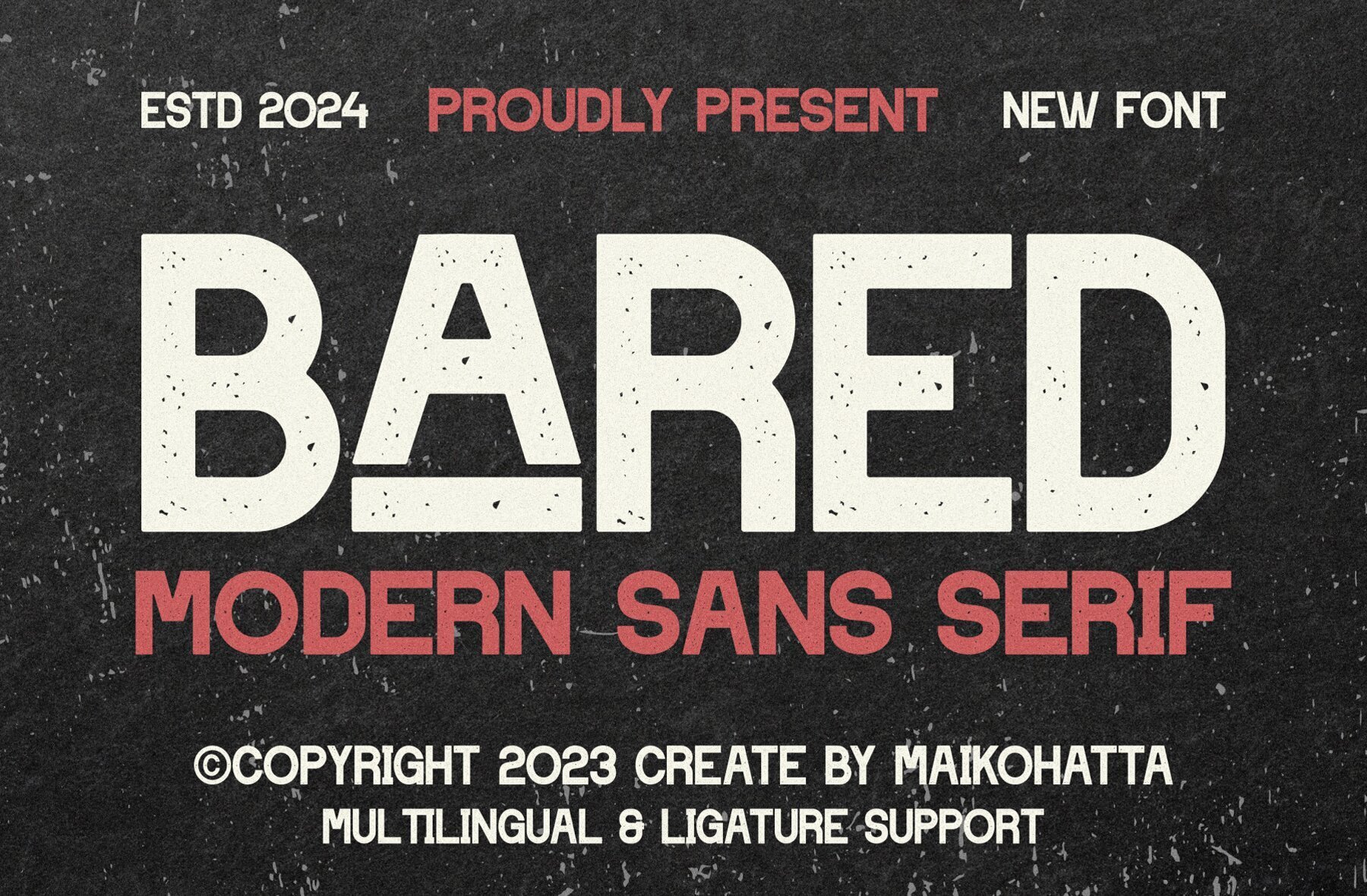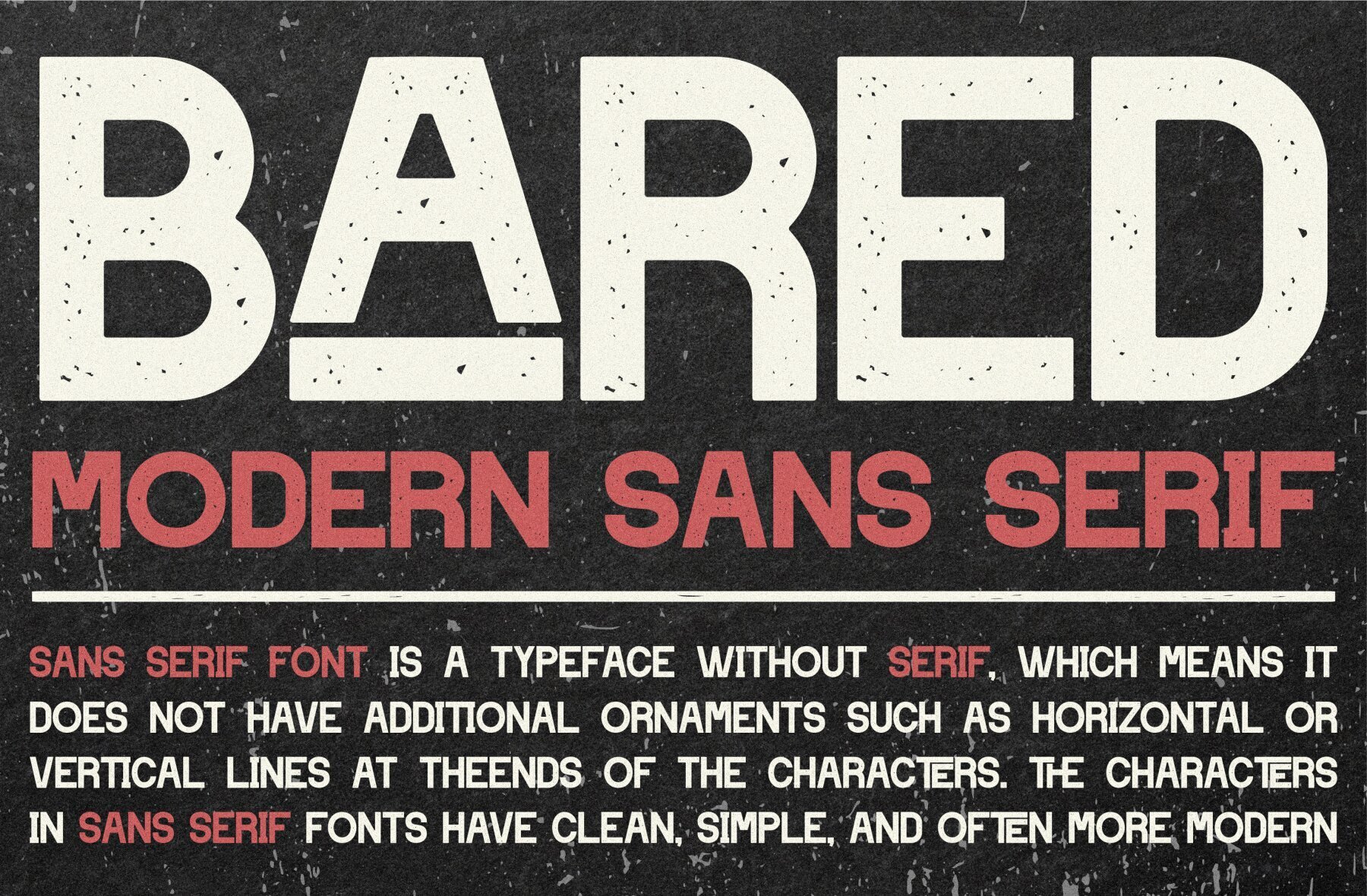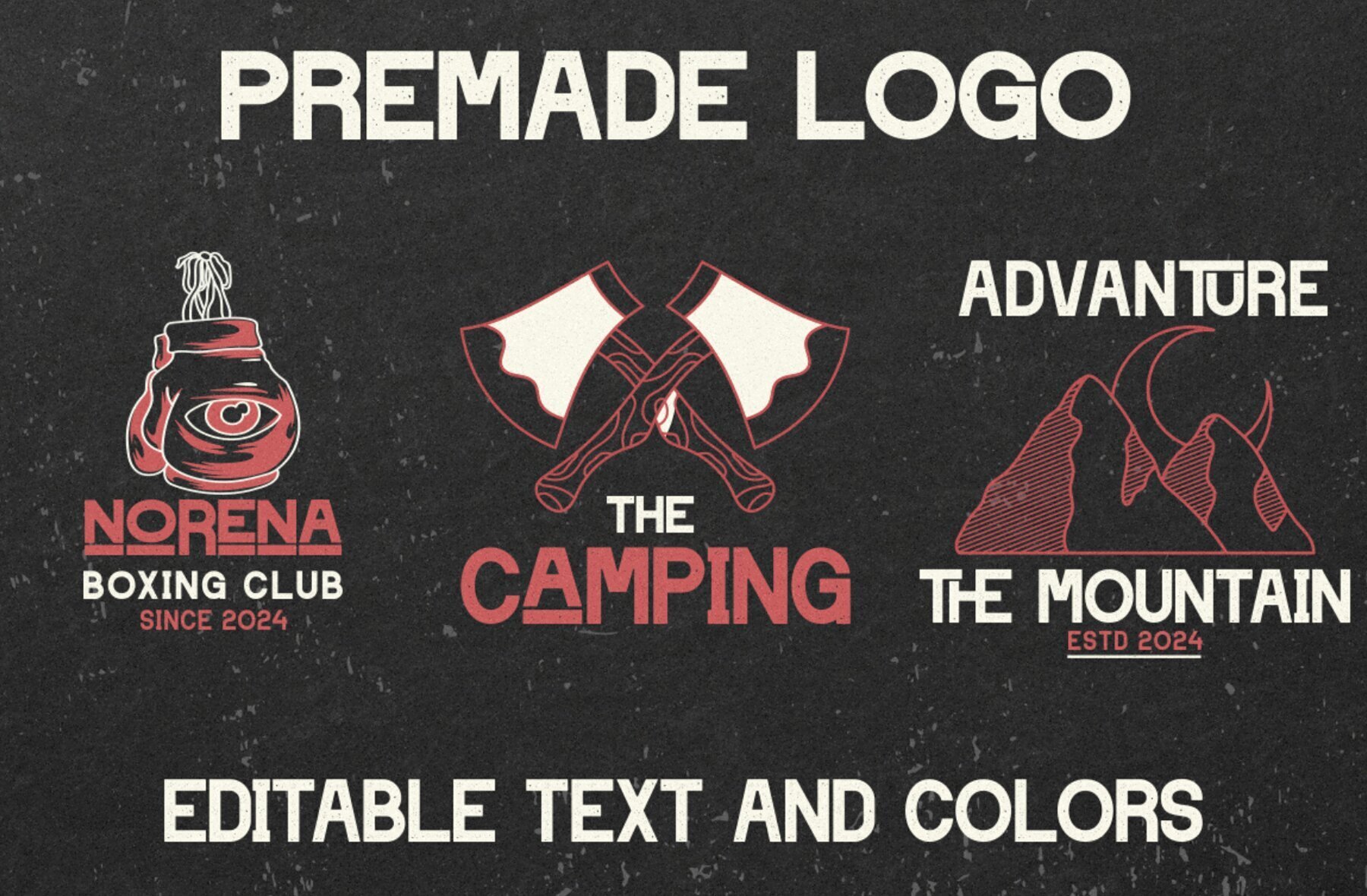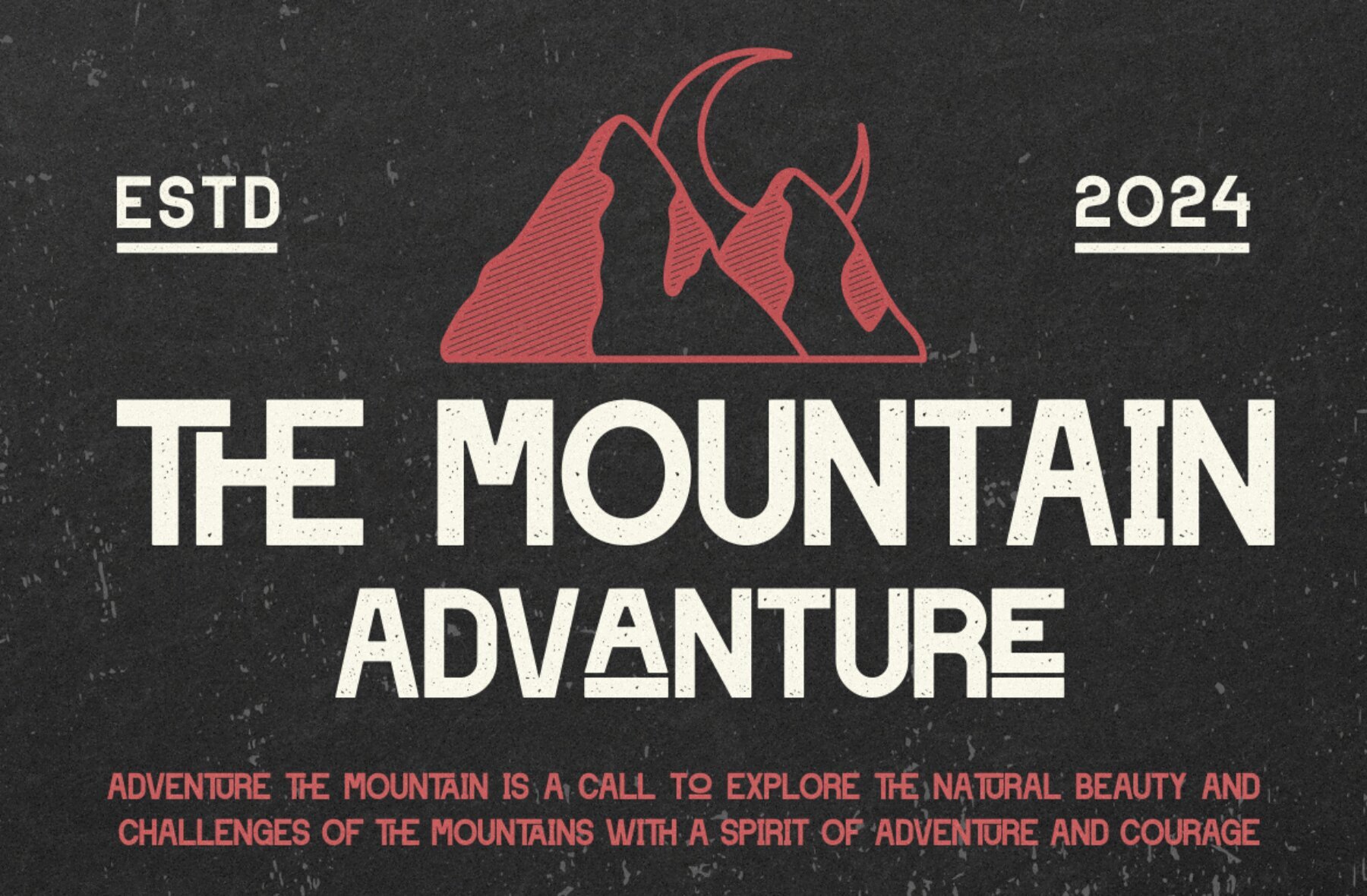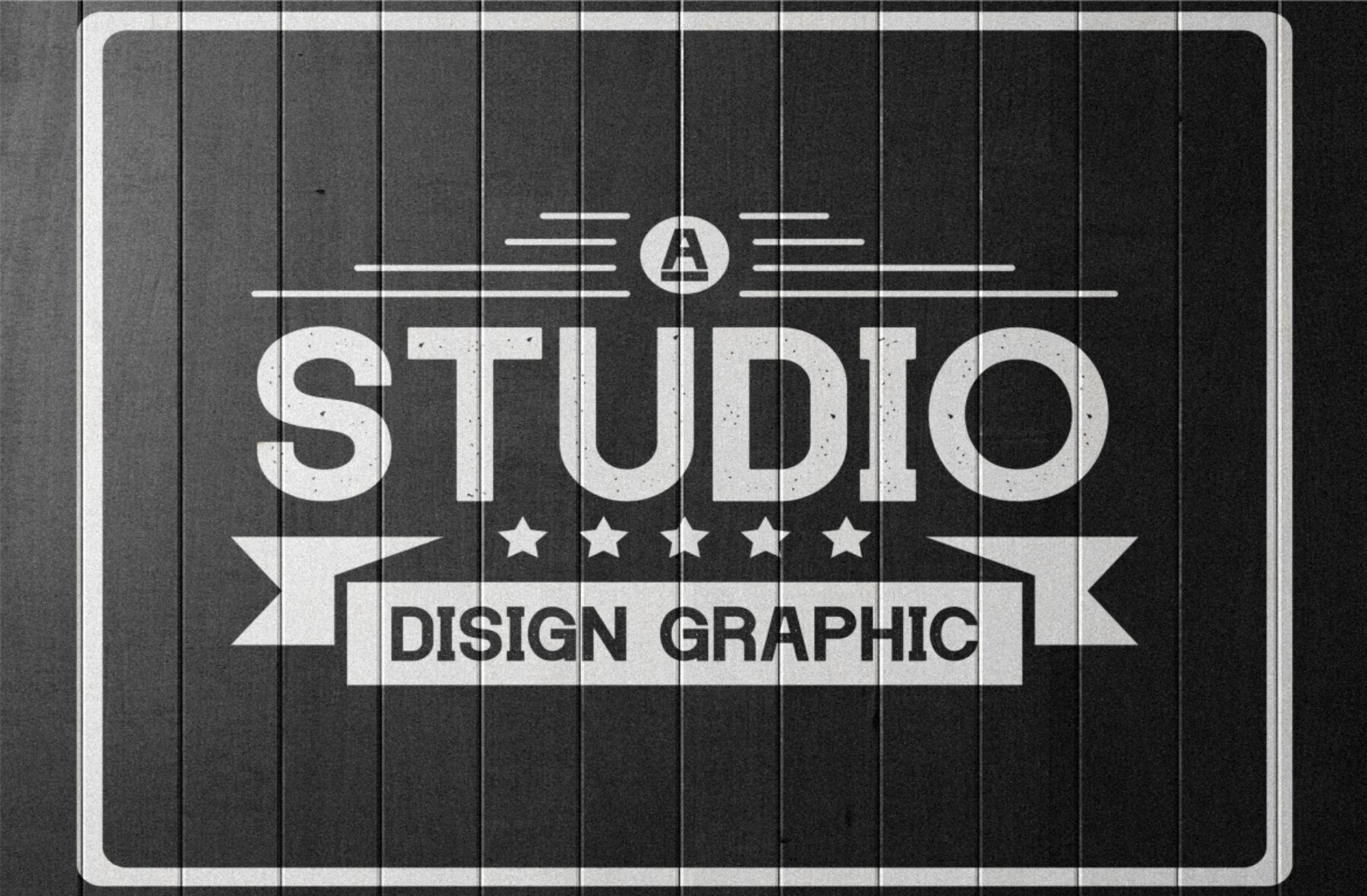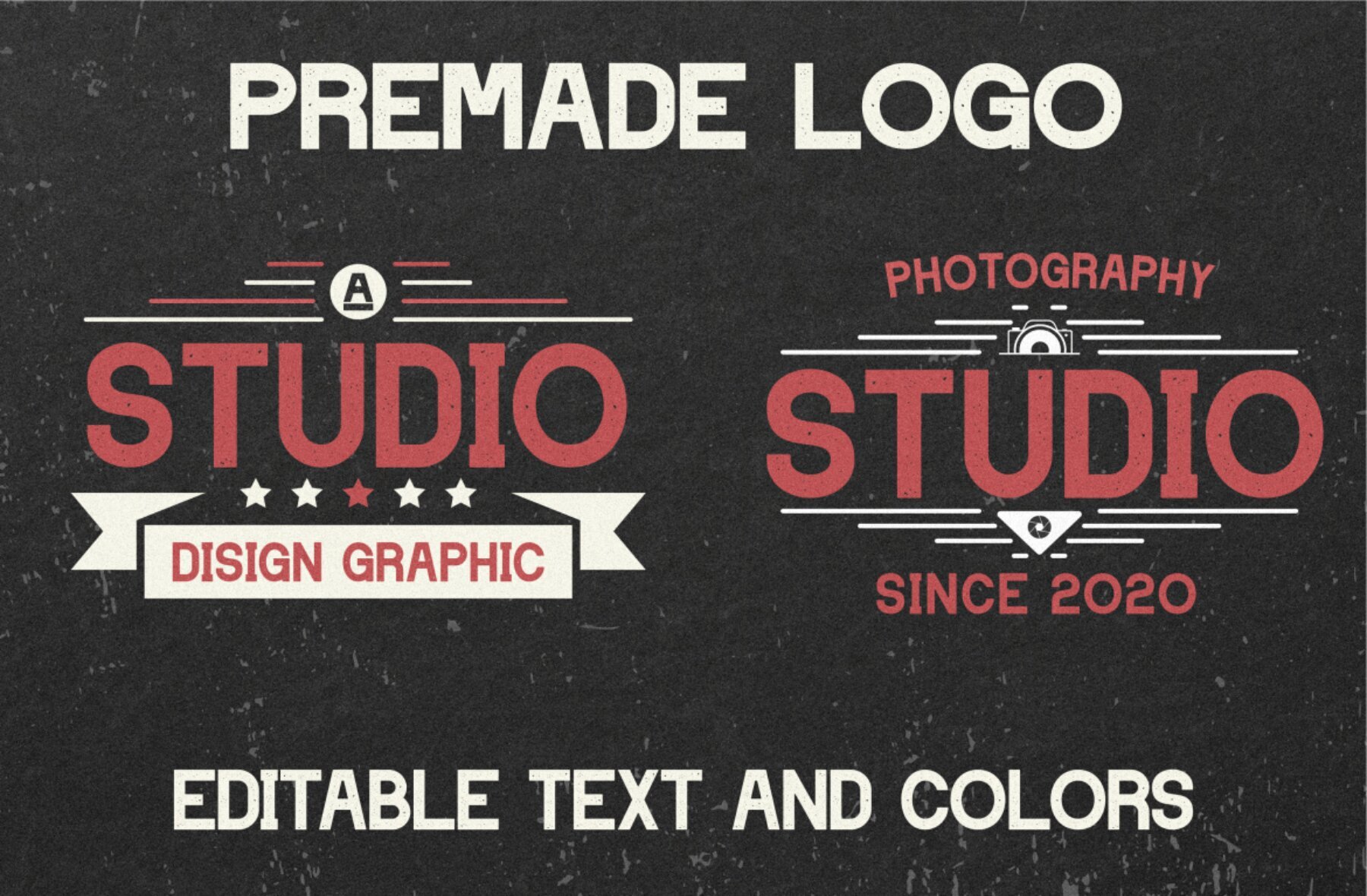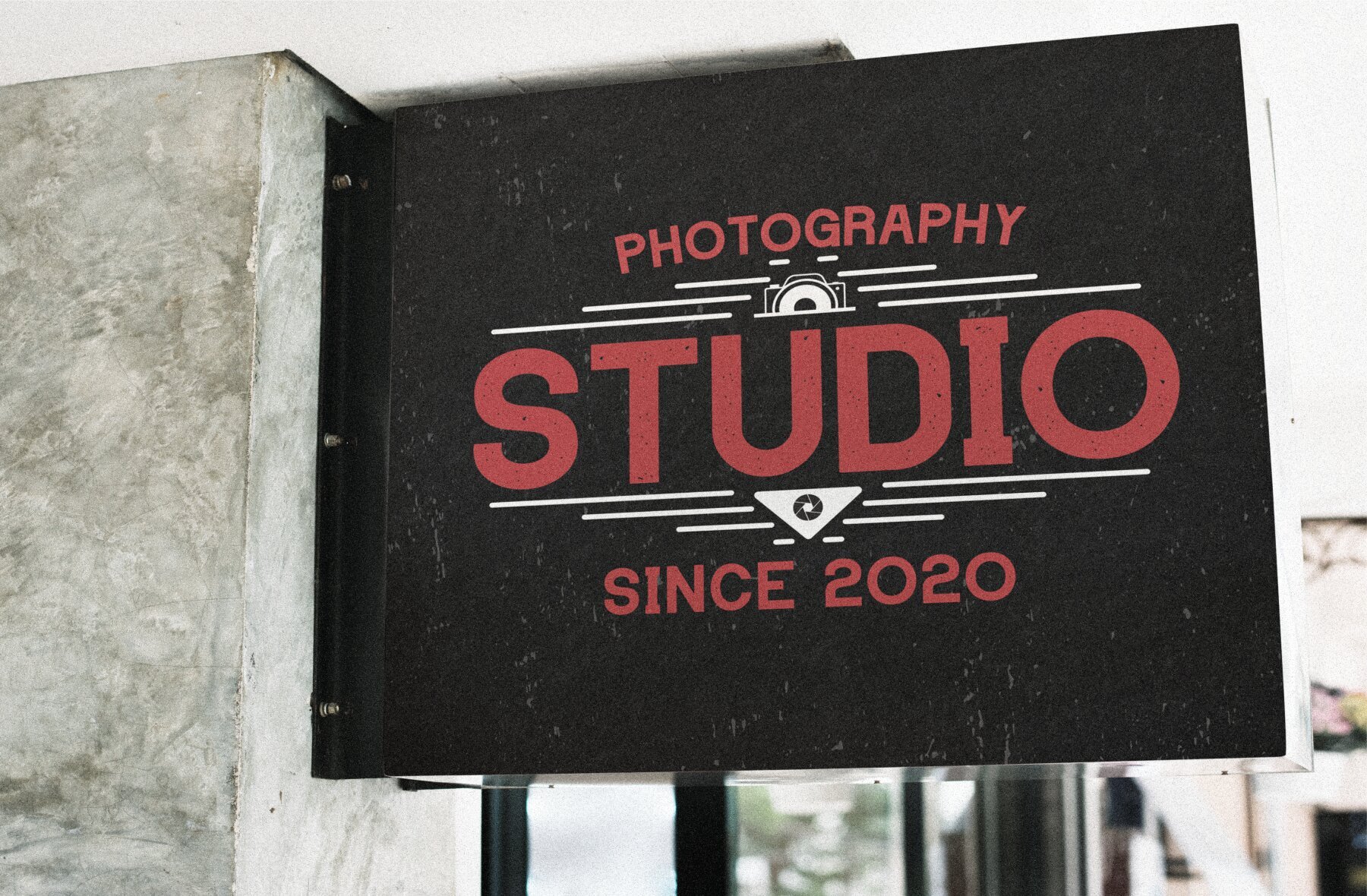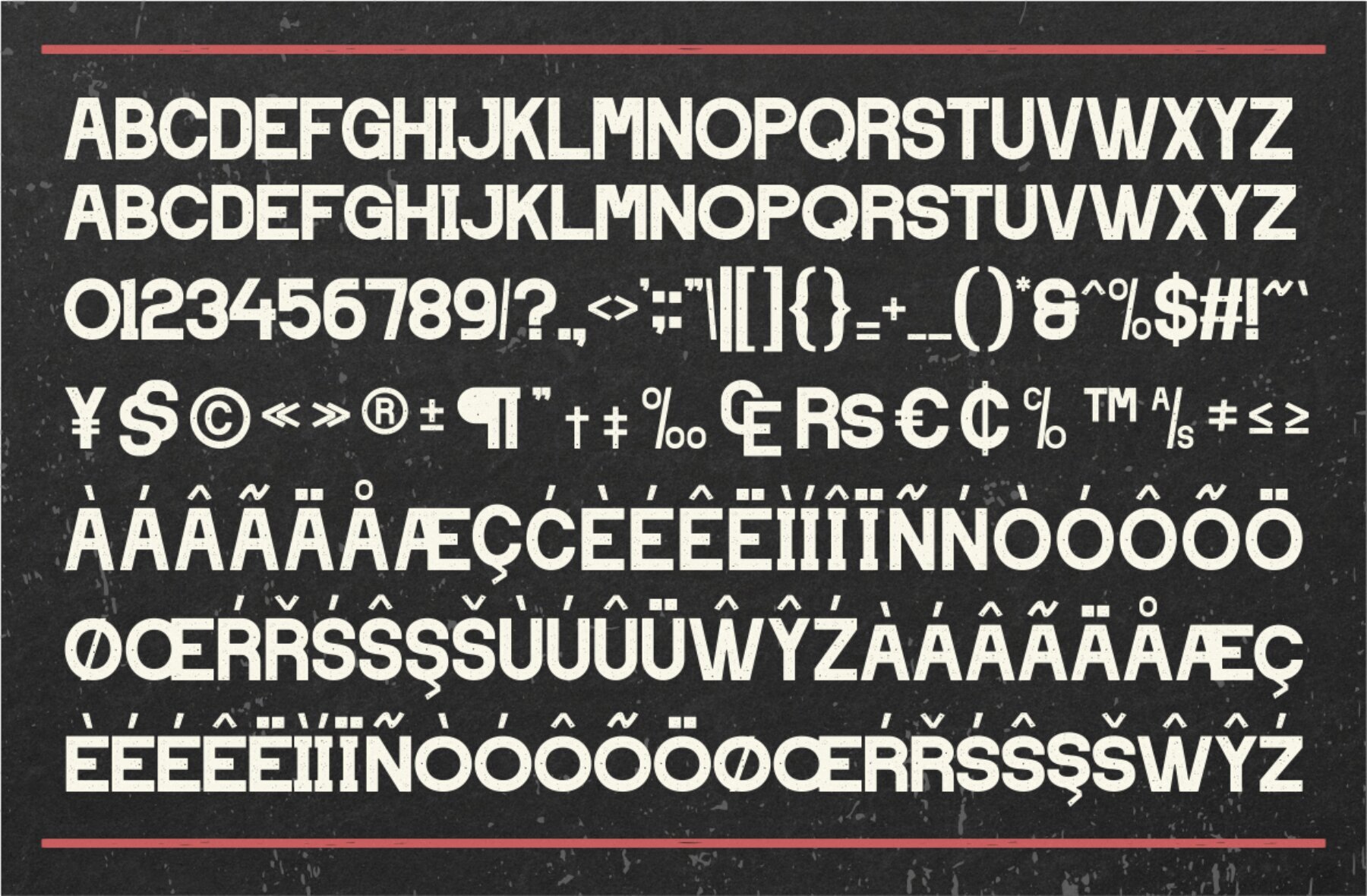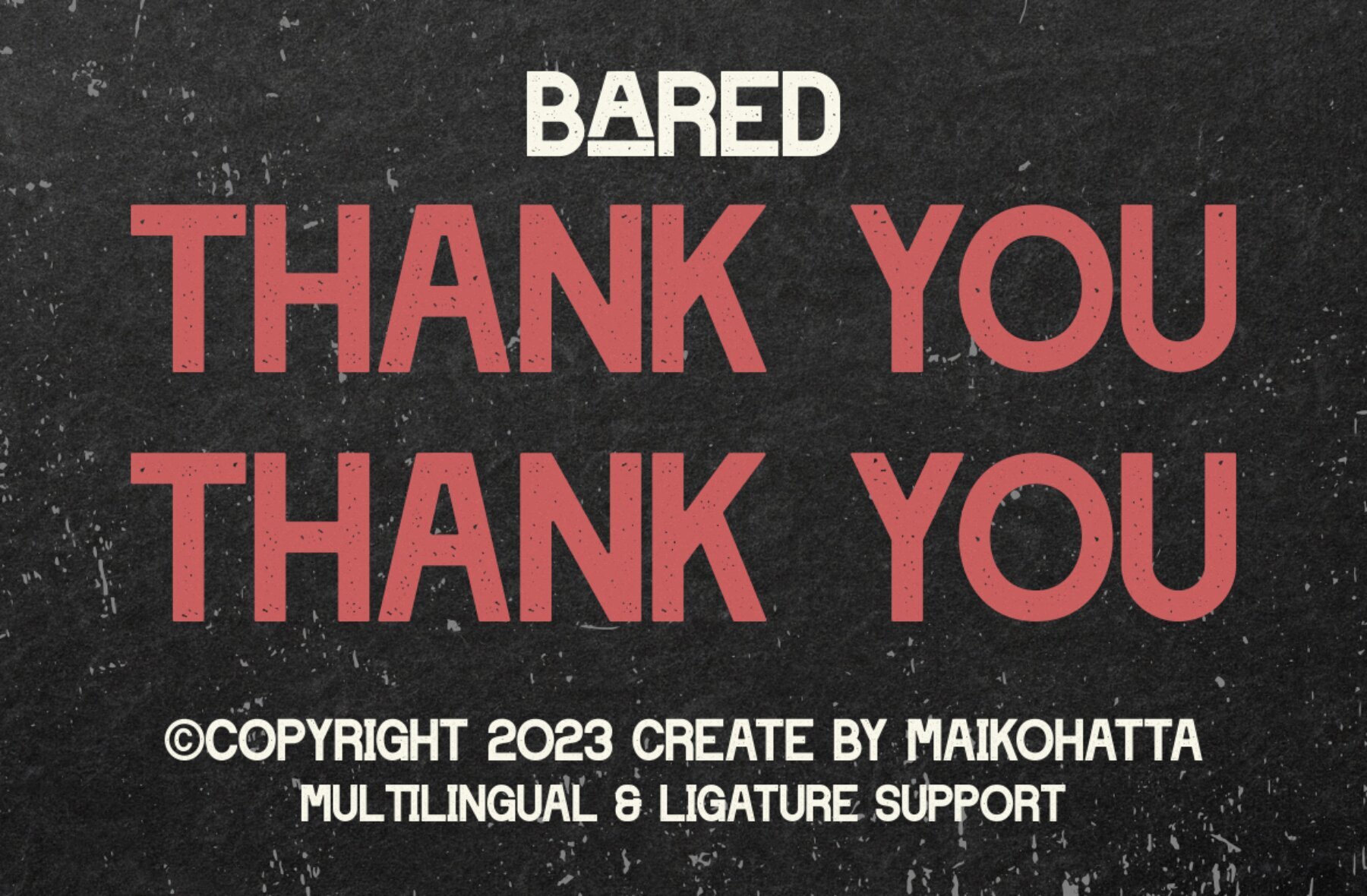
Bared Font
The Bared font by Maikohatta is a modern sans serif display font that exudes boldness and authenticity. With its versatile design, Bared is perfect for a wide range of branding projects such as logos, template designs, esports, and more.Bared: Bold Modern Sans Serif Font